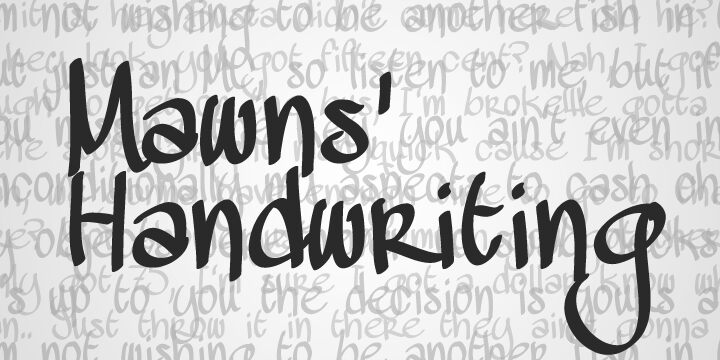
MAWNS Handwriting by Måns Grebäck is a free handwritten font with tall, loosely formed letters and a restless baseline. Its narrow strokes, oversized loops, and abrupt overlaps resemble quick notes made with a felt-tip pen, giving the writing an energetic, slightly unruly pace.
The sweeping lines can echo sketchbook illustrations and hand-drawn doodles on music posters or album artwork. That same informal motion also suits youth-event graphics, casual apparel, and personal stationery, especially when the lettering is meant to feel immediate rather than polished. Across these uses, the irregular joins and changing letter heights let the words function as part of the drawing rather than detached typography.